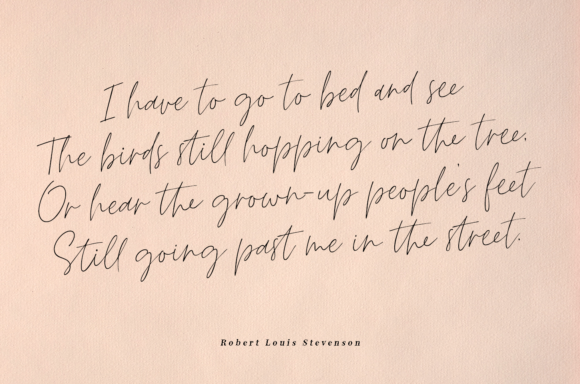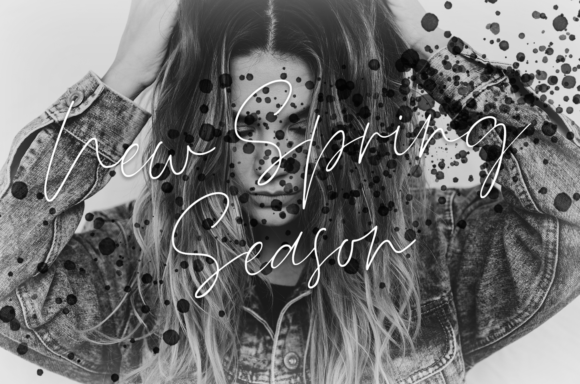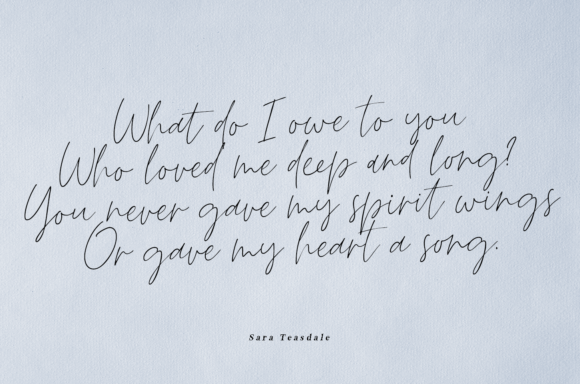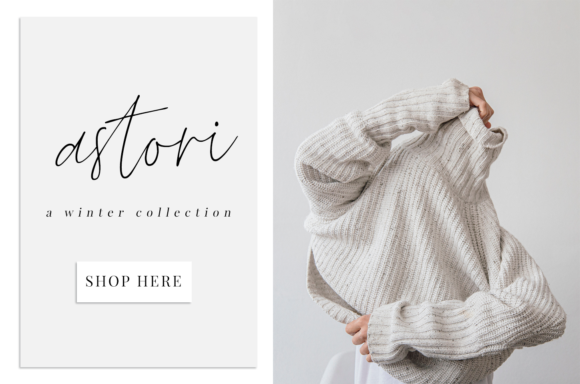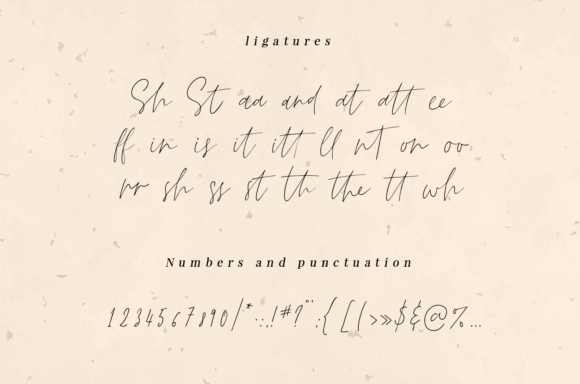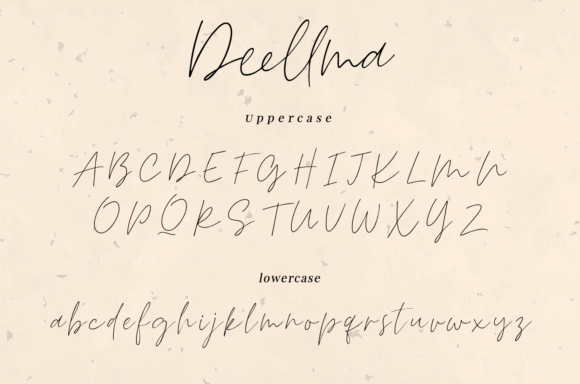
HomeScript FontsDeellma Font Script Fonts Deellma Font FacebookXPinterestWhatsApp Deellma Font Poster 2 Deellma Font Poster 3 Deellma Font Poster 4 Deellma Font Poster 5 Deellma Font Poster 6 Deellma Font Poster 7 About Deellma Font Deellma is a beautiful script font with elegant style. It will add a romantic touch to any crafting project! DOWNLOAD ON CREATIVE FABRICAThis font is sold and delivered by Creative Fabrica. Font Canyon may earn a commission if you buy through this link. People also explored Giselle Jakayla Font Kamehaya Bintang Font Cookies Sweet Font Dramatic Freak Mailers Font Sweet Heart Font Black Carbony Font Wood Factory Winter Coming Font 669 0 TagsDeellma Font Previous articleCarllis FontNext articleFresh Love Font LEAVE A REPLY Cancel reply Comment: Please enter your comment! Name:* Please enter your name here Email:* You have entered an incorrect email address! Please enter your email address here Website: Save my name, email, and website in this browser for the next time I comment. Personal Use Free Pumpkin Type Halloween Font Personal Use Free Read more about this font Love Story Personal Use Free Read more about this font Nouradilla Script Free Version Personal Use Free Read more about this font Special Day Personal Use Free Read more about this font BLOG The 10 Best Handwriting Fonts to Add Personality to Your Designs 10 of the Best Handwriting Fonts for Adding Personality to Your Designs There will undoubtedly be no other better choice than handwriting fonts to give... Exploring Font Trends Elegant Wedding Invitation Fonts – Handwritten & Script Fonts 5 Fonts That Will Dominate Design Trends in 2026